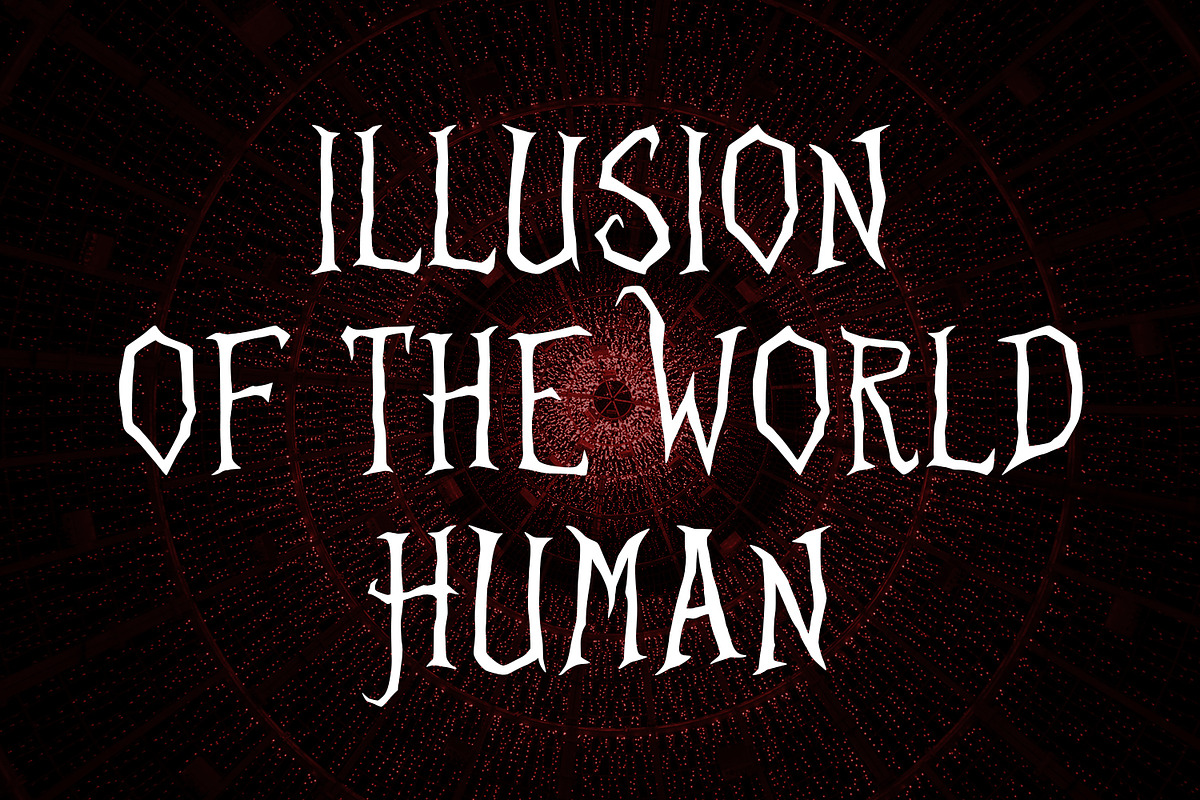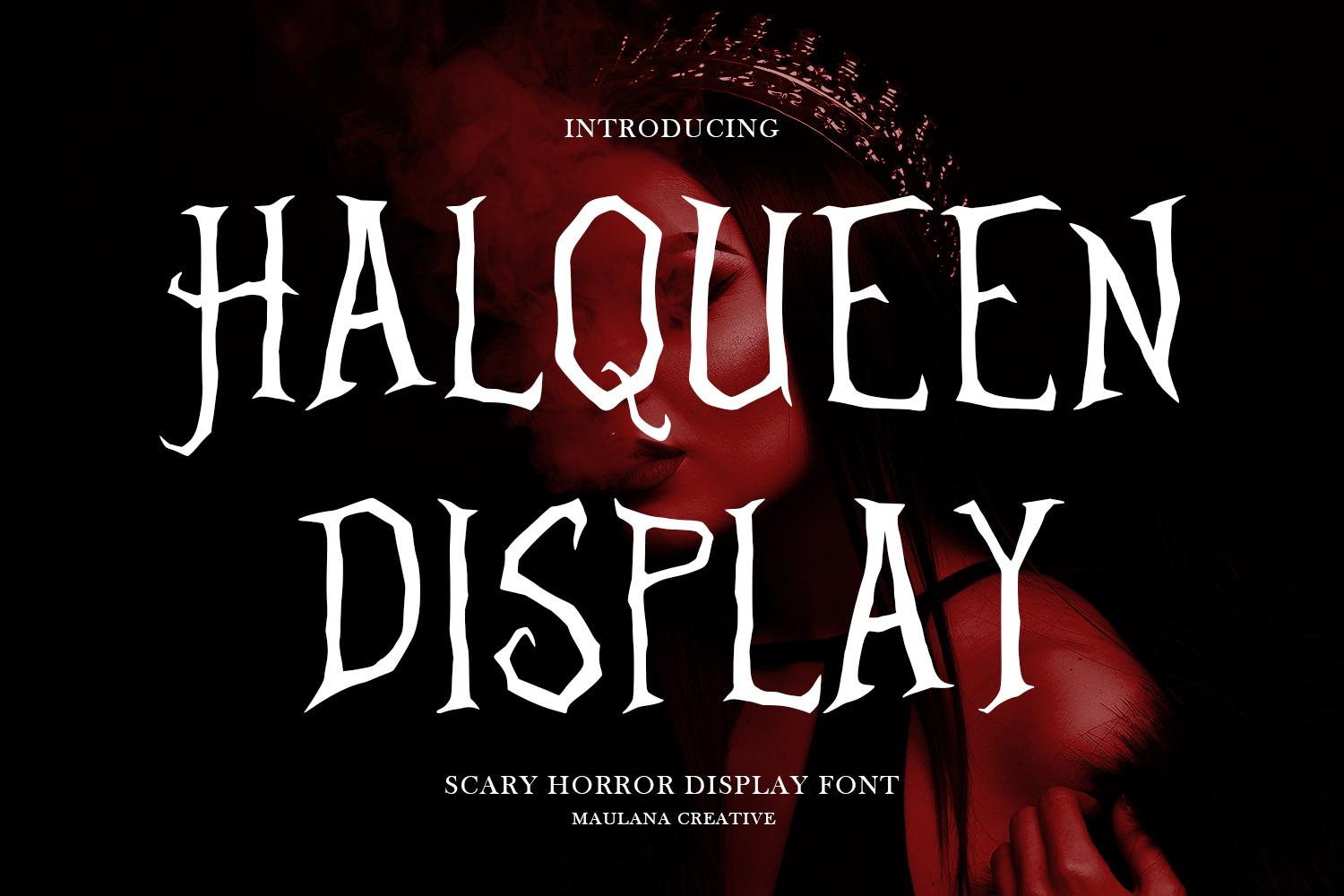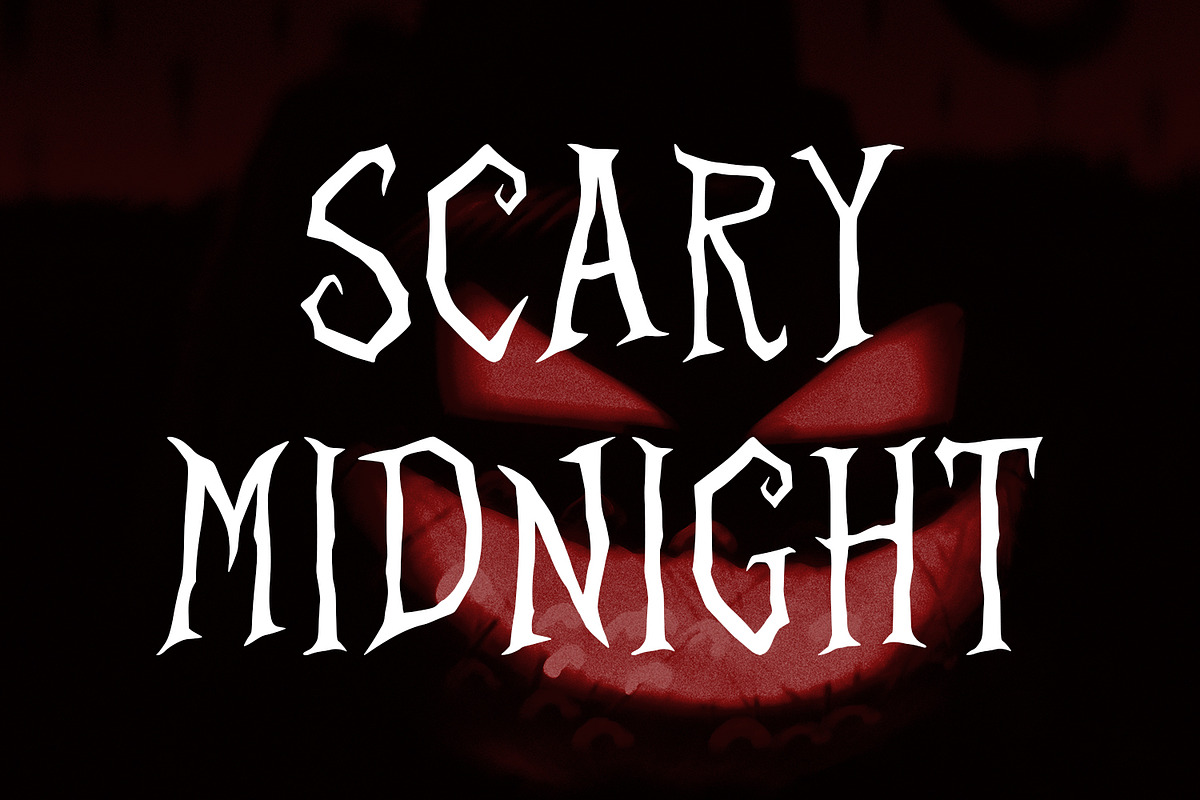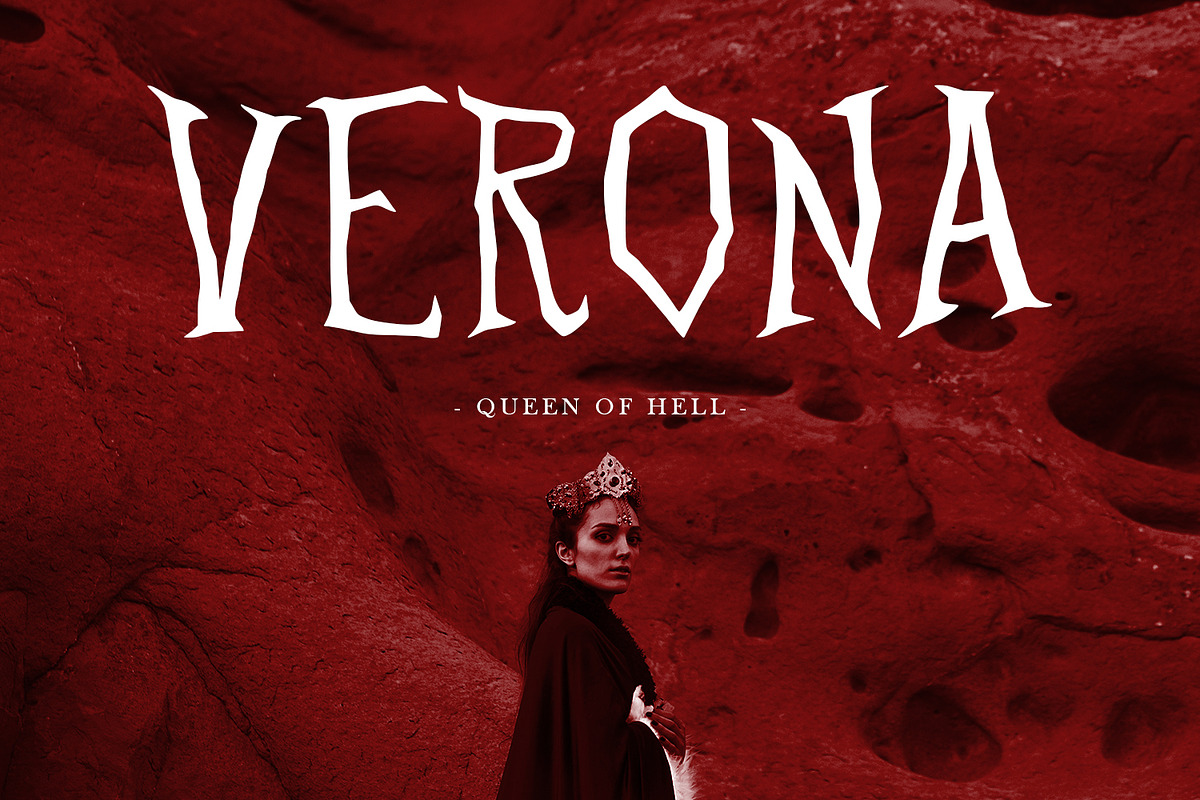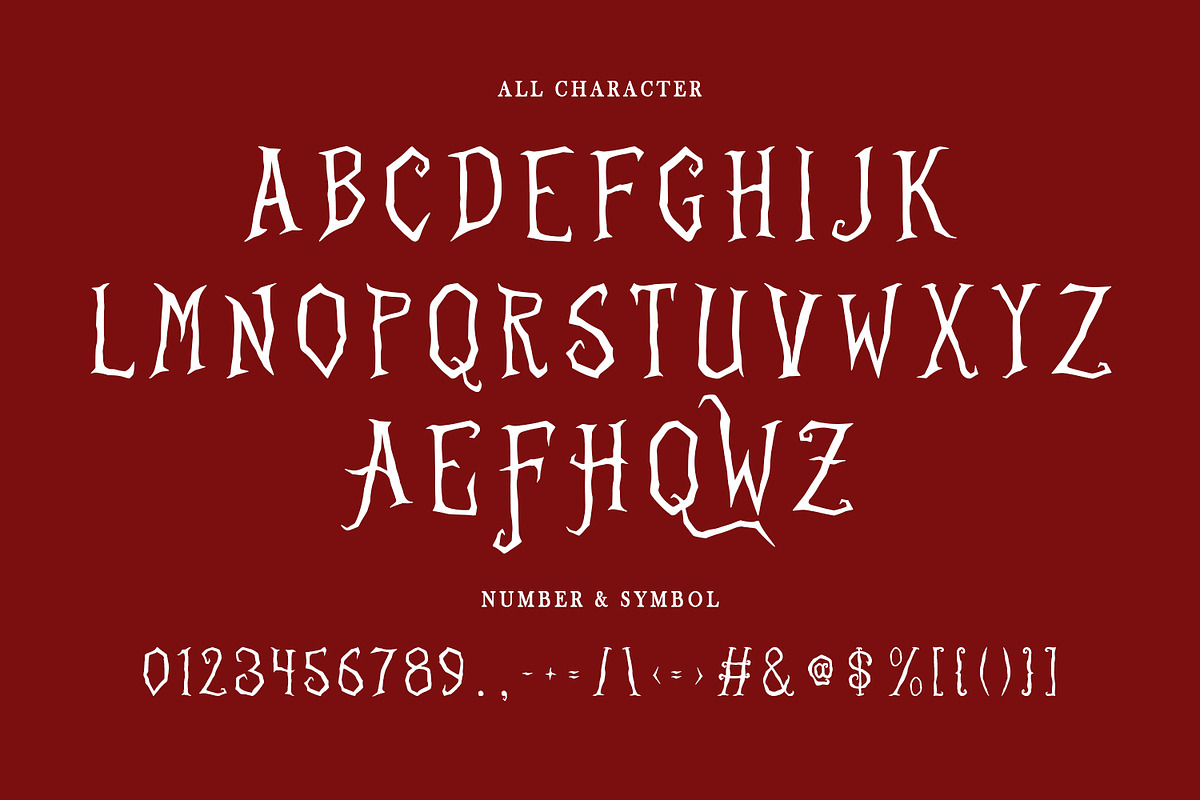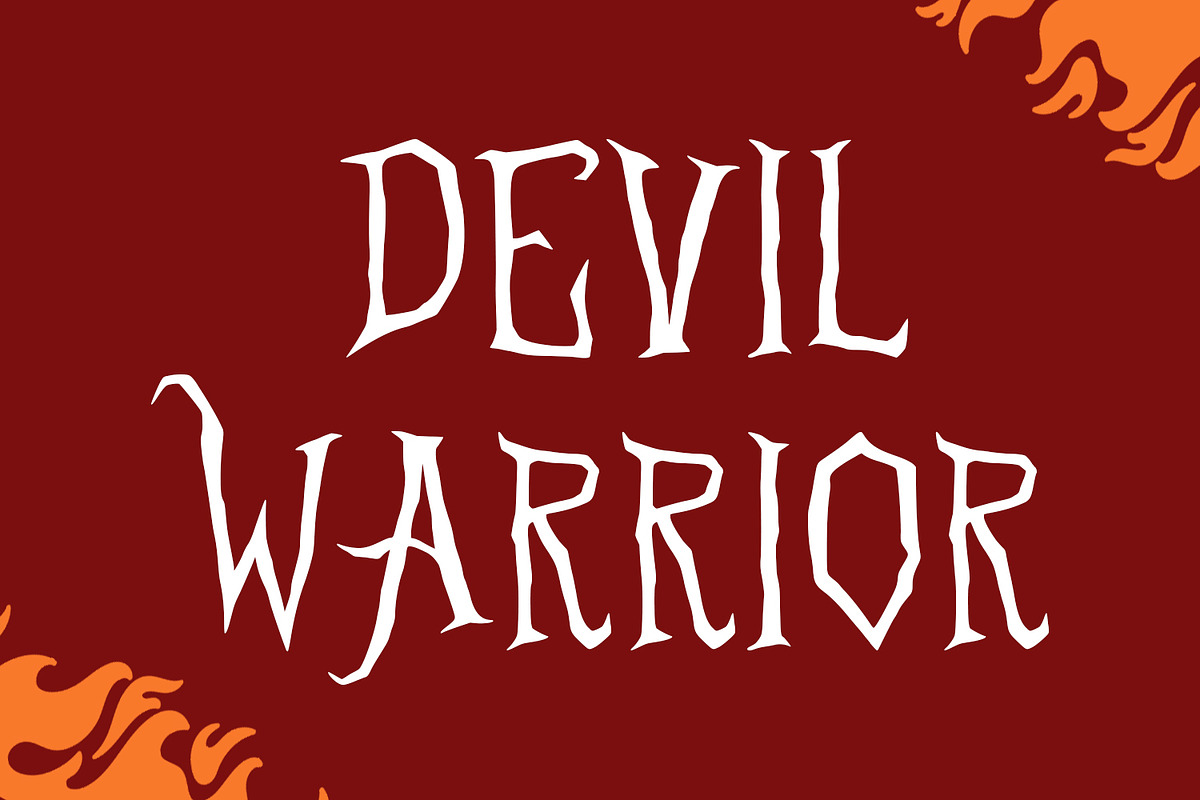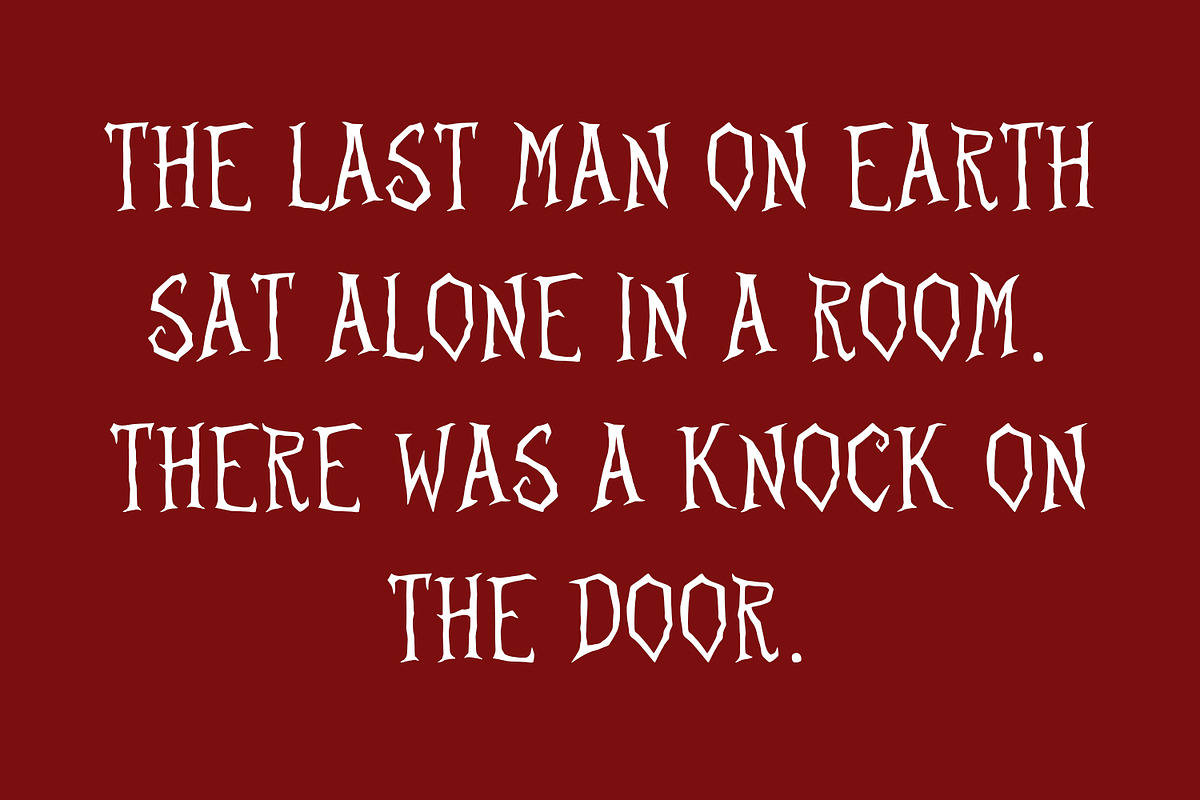
Halqueen Horror Display Font
Halqueen horror display font. With light contrast stroke, fun character with a bit of alternates. To give you an extra creative work. Halqueen horror display font support multilingual more than 100+ language. This font is good for logo design, Social media, Movie Titles, Books Titles, a short text even a long text letter and good for your secondary text font with sans or serif. Make a stunning work with Halqueen horror display typeface.